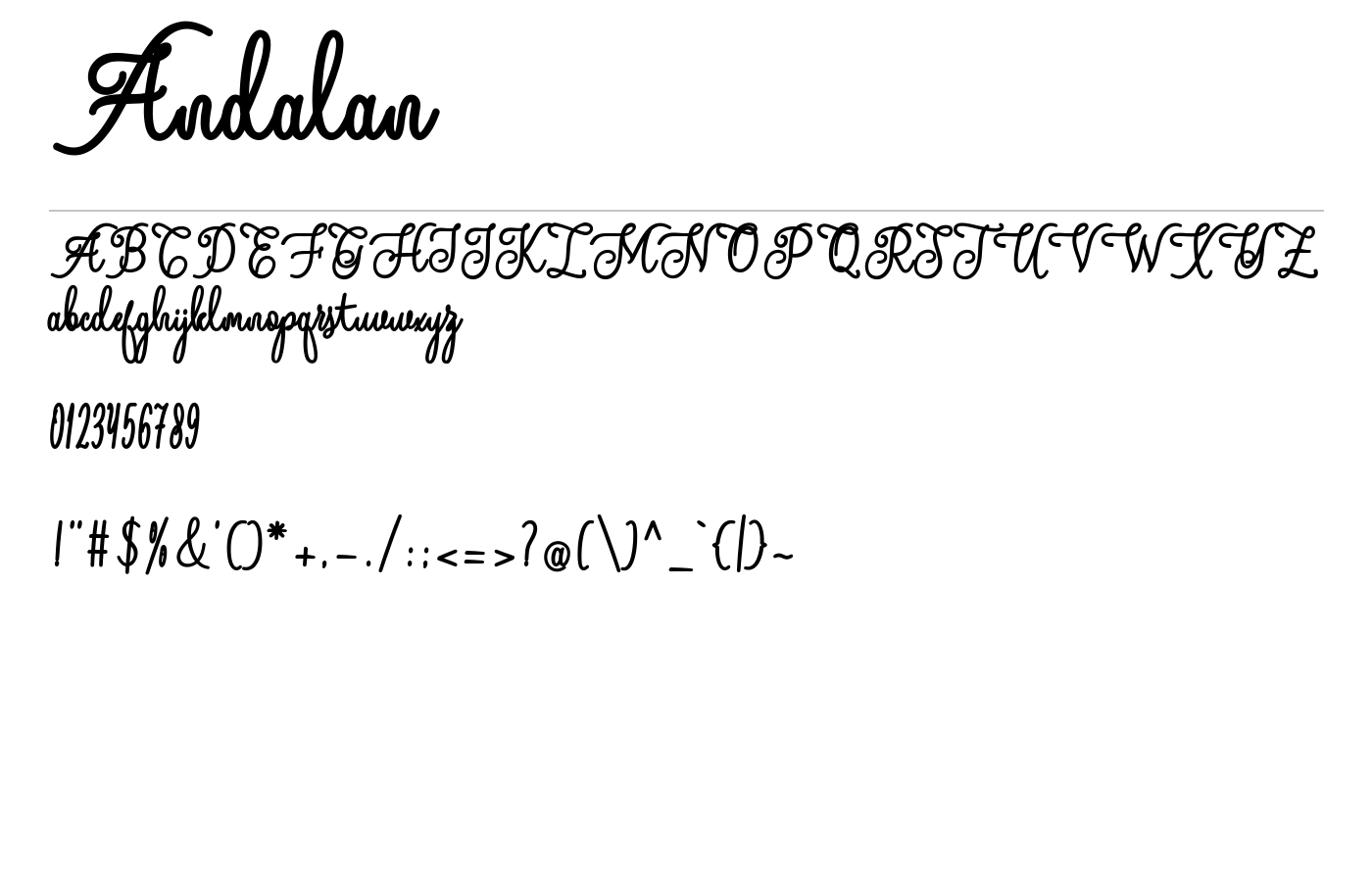
Andalan is a playful script font with a modern, handwritten feel, featuring smooth, flowing letterforms with moderate contrast and rounded strokes. Its tall, slightly condensed characters and elegant uppercase swashes add a decorative yet readable touch, making it ideal for personalized branding, invitations, and creative display uses. This font works best where a stylish, approachable, and unique aesthetic is desired.
Andalan Font